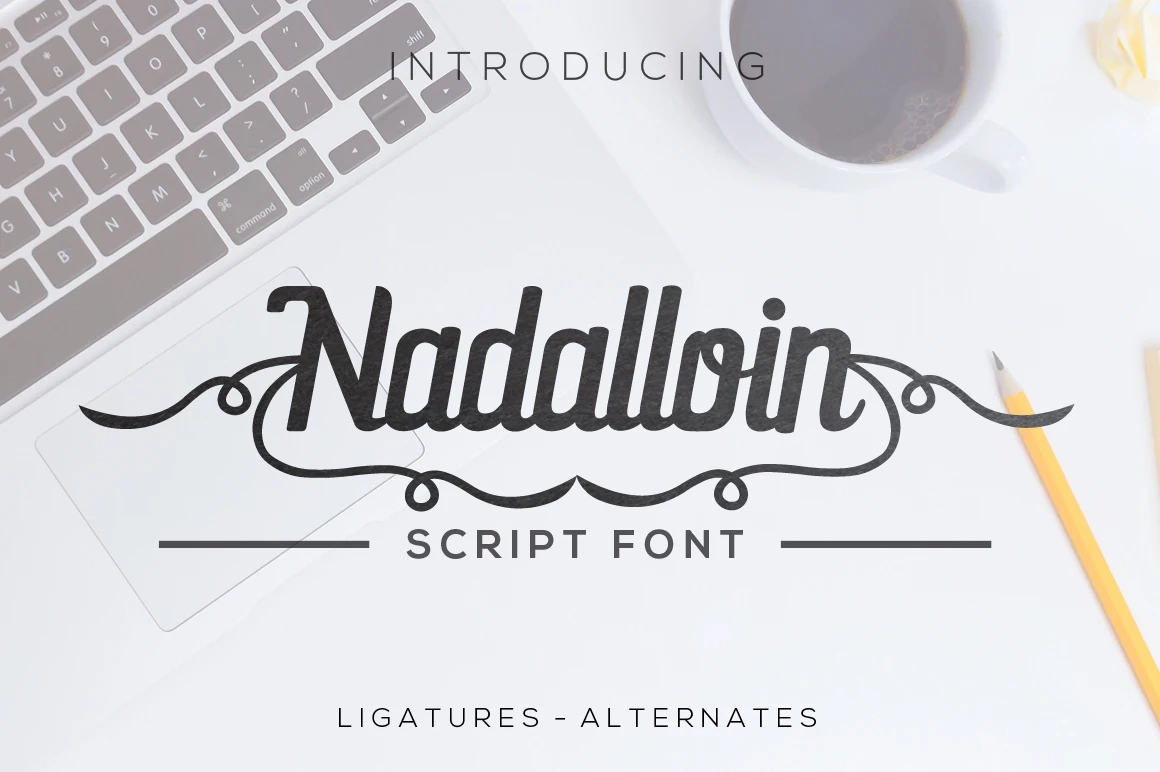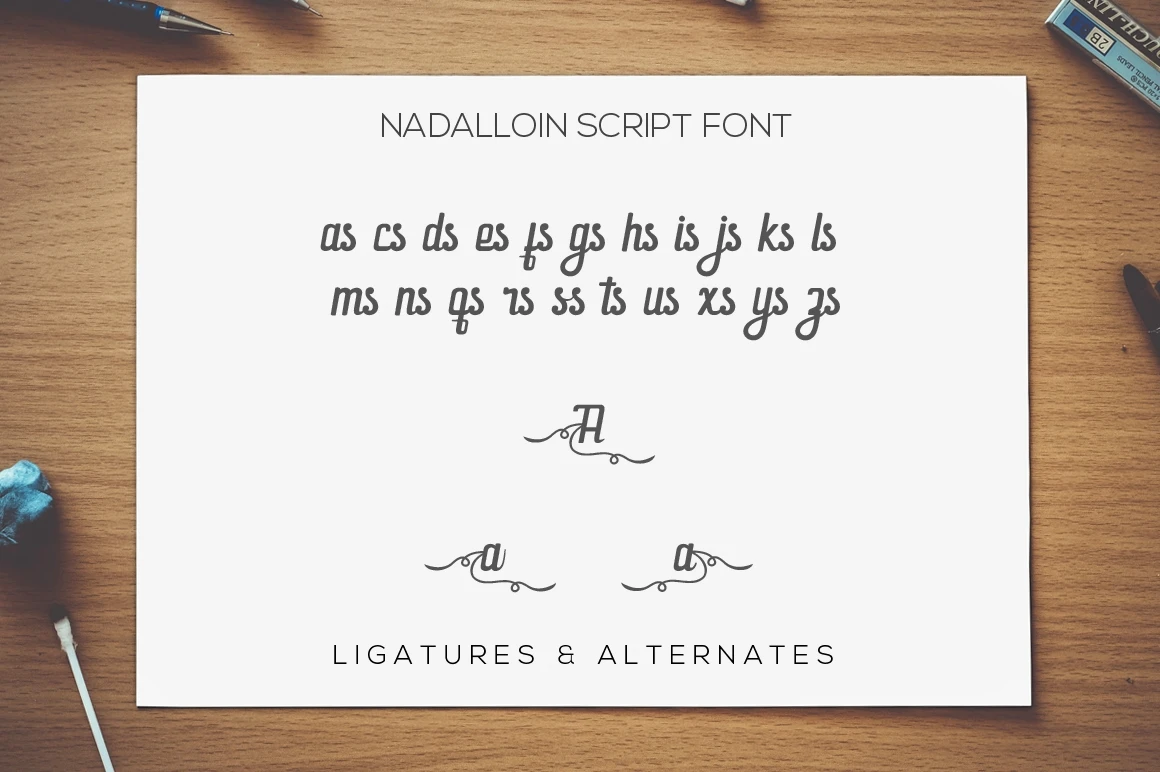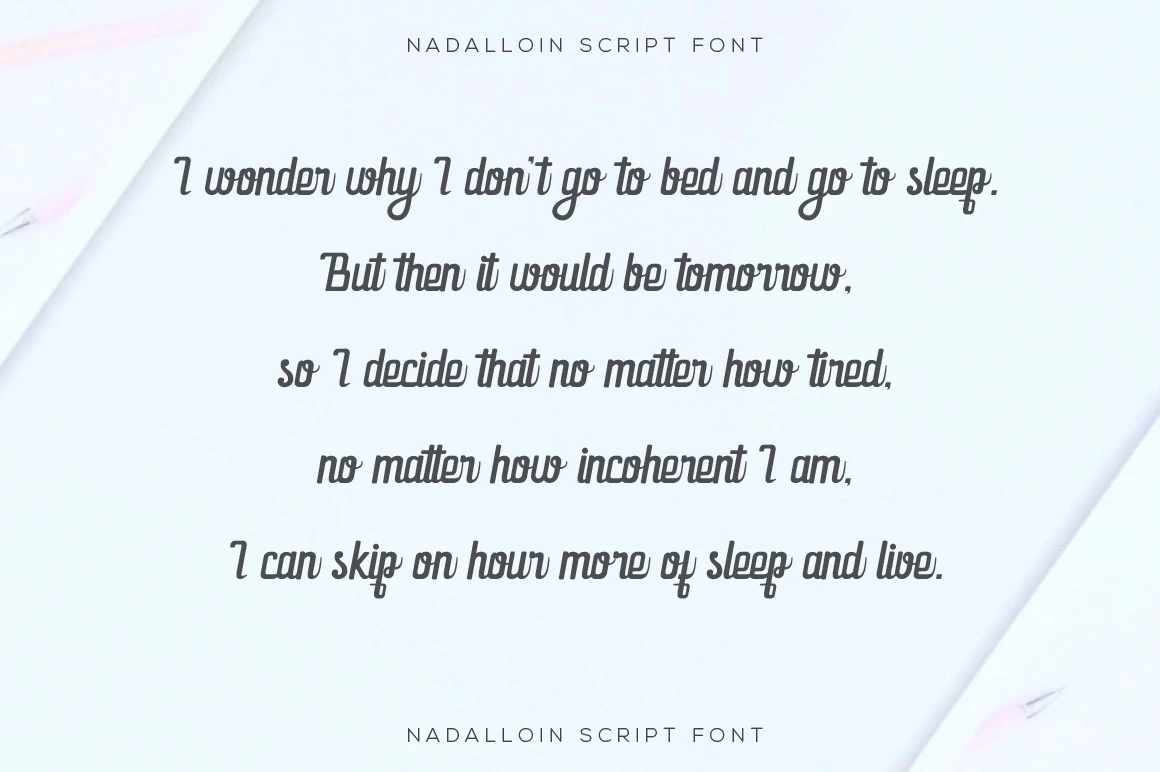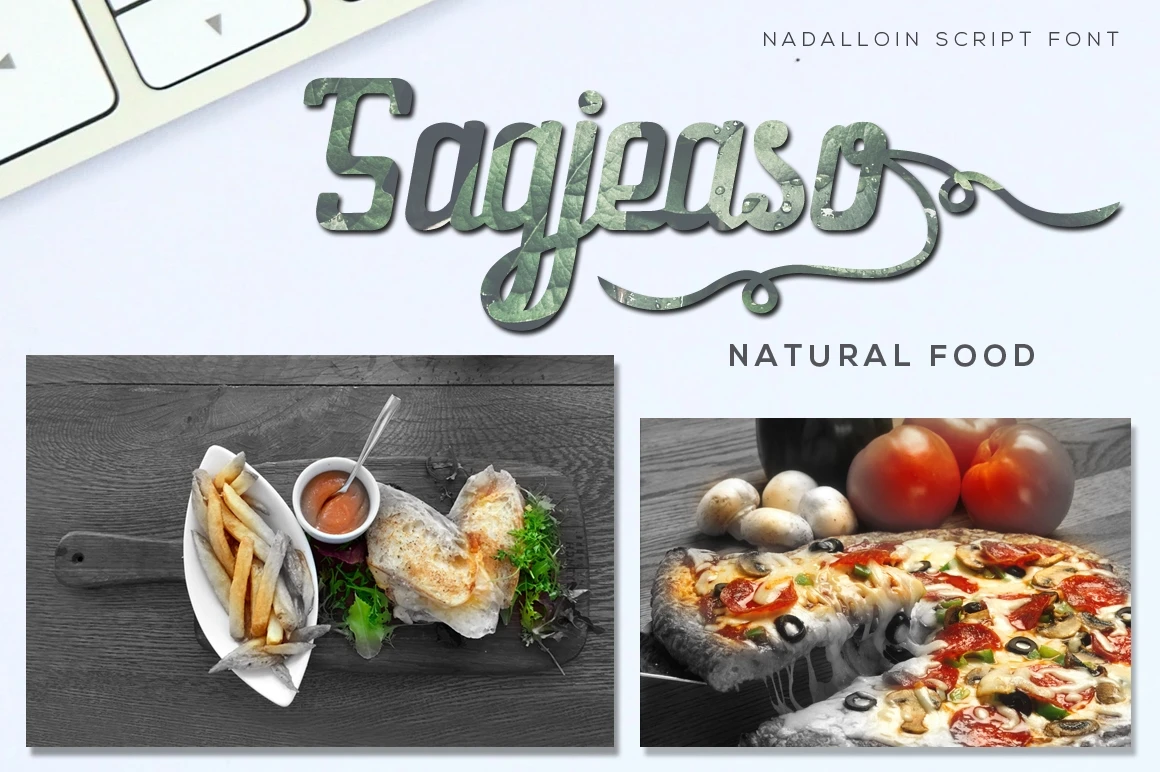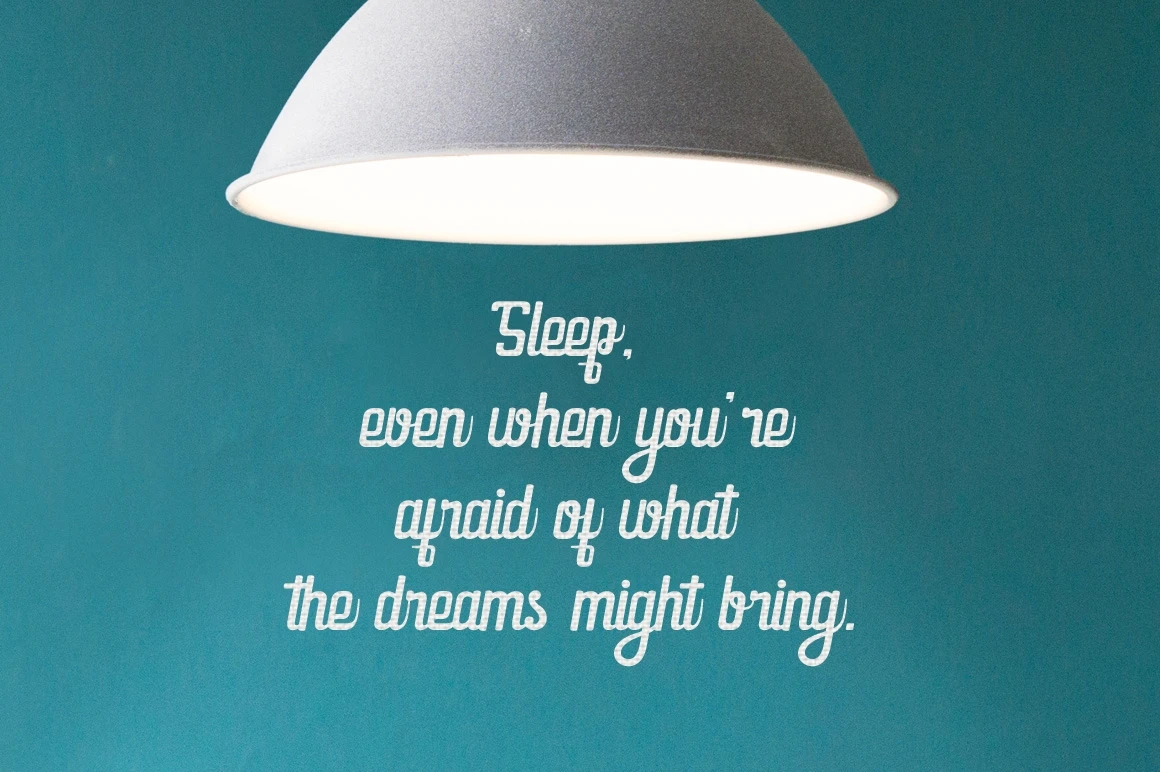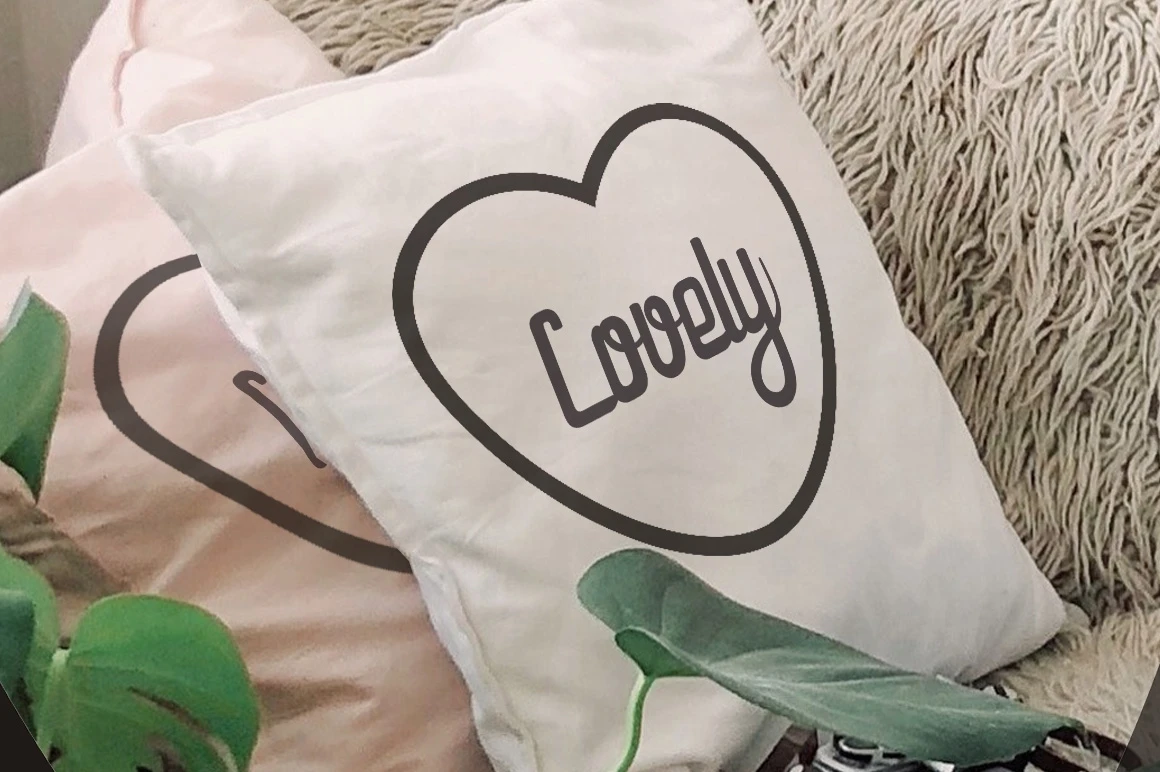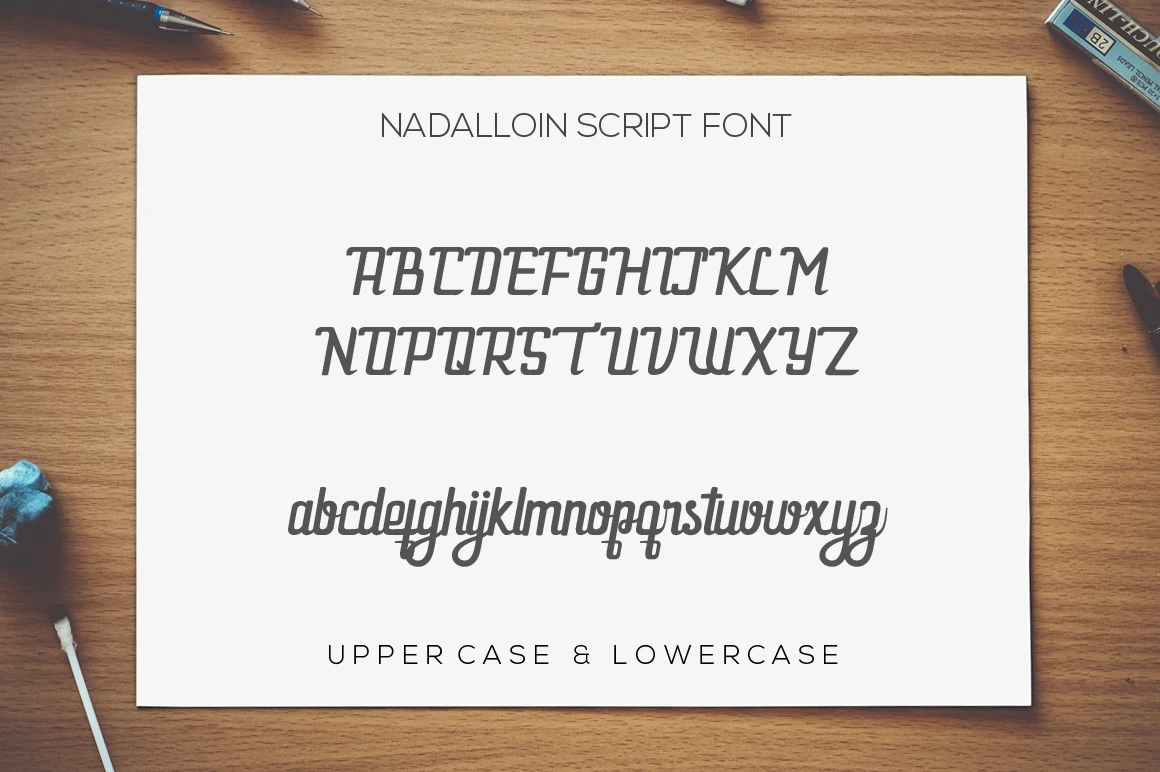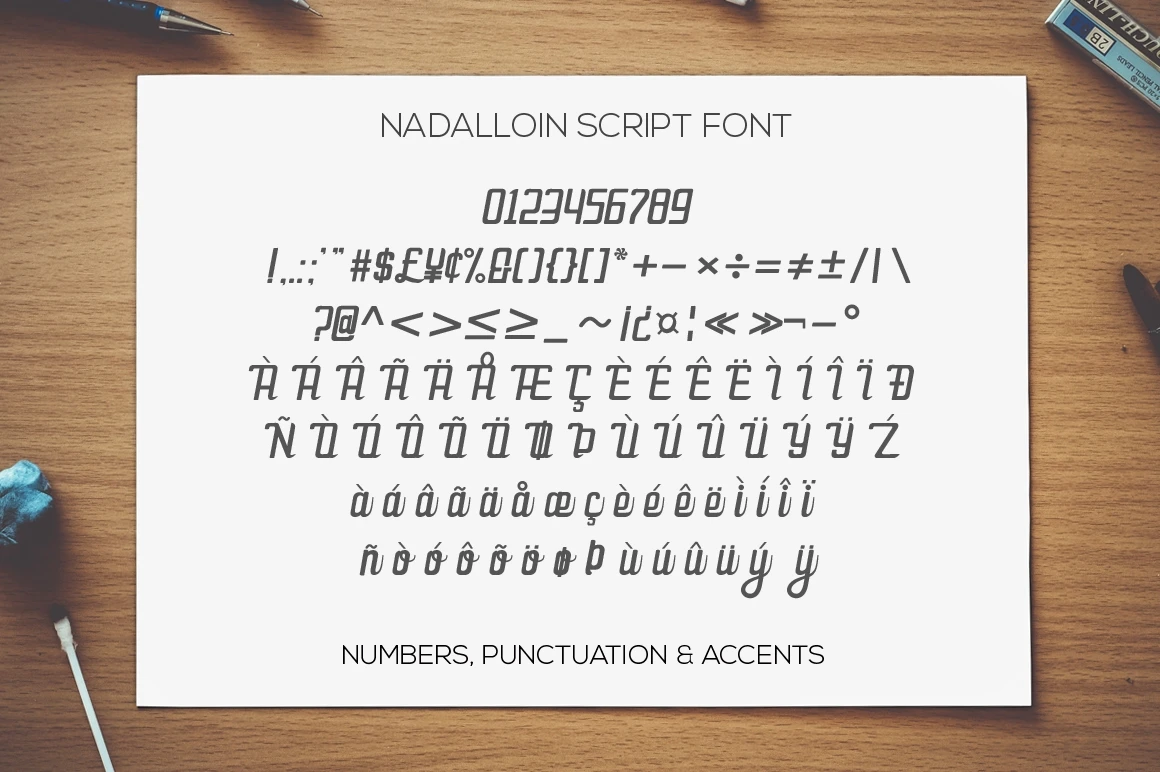
Nadalloin is a geometric modern script font with vintage ornament.
Very suitable for greeting cards, branding materials, business cards,quotes,posters, and more
Features :
- Uppercase A-Z
- Lowercase a-z
- Numbers 0-9
- Punctuation
- Custom Ligatures
- Uppercase alternates
- Lowercase alternates
- Multilingual support